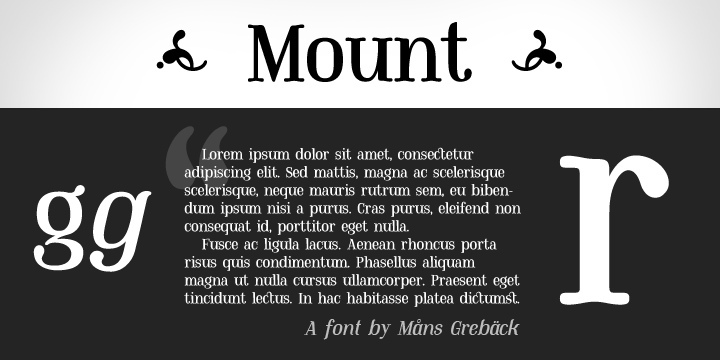
Mount Font
Mount Font is perfect for outdoor adventure companies, mountain tourism branding, hiking equipment retailers, alpine resort marketing, wilderness expedition services, and rugged outdoor gear packaging. This commanding typeface excels in national park materials, mountaineering club communications, outdoor photography portfolios, and any application where mountain majesty and outdoor adventure create inspiring connections with nature enthusiasts and outdoor adventure seekers.
What makes Mount Font so exciting is its remarkable ability to capture the towering strength and natural grandeur of mountain landscapes through bold, summit-inspired letterforms that seem carved from stone cliffs. The font features rugged construction, alpine proportions, and peak character shapes that embody the challenge and beauty of mountain environments. Its majestic presence makes it perfect for brands celebrating the call of the mountains and outdoor exploration.
Mount Font comes in a mountainous family including Light, Regular, Medium, Bold, and Summit weights. Each style features complete uppercase and lowercase character sets, outdoor symbols, alpine numerals, and wilderness punctuation marks. The font family also includes rocky alternates, trail ligatures, and peak variations that allow designers to create truly authentic mountain communications with outdoor appeal and professional wilderness quality.
This inspiring typeface transforms communications into powerful expressions of mountain heritage and outdoor adventure spirit. Mount Font Free Download provides outdoor businesses and adventure brands with essential typography that honors mountain traditions while serving contemporary outdoor recreation communication needs. Whether you're developing brands for mountain resorts, creating materials for hiking companies, or designing promotional content for wilderness experiences, this font delivers authentic mountain resonance with alpine strength.
The font's mountainous character makes it particularly effective for outdoor outfitters, mountain guides, alpine resorts, and wilderness adventure companies. Its solid readability ensures that Mount Font communicates clearly while maintaining its distinctive rugged personality. The font's ability to evoke adventure and natural grandeur makes it an invaluable summit for any project seeking to celebrate mountain heritage and connect with audiences through the timeless appeal of alpine beauty, outdoor adventure, and the inspiring challenge of mountain exploration and wilderness discovery.